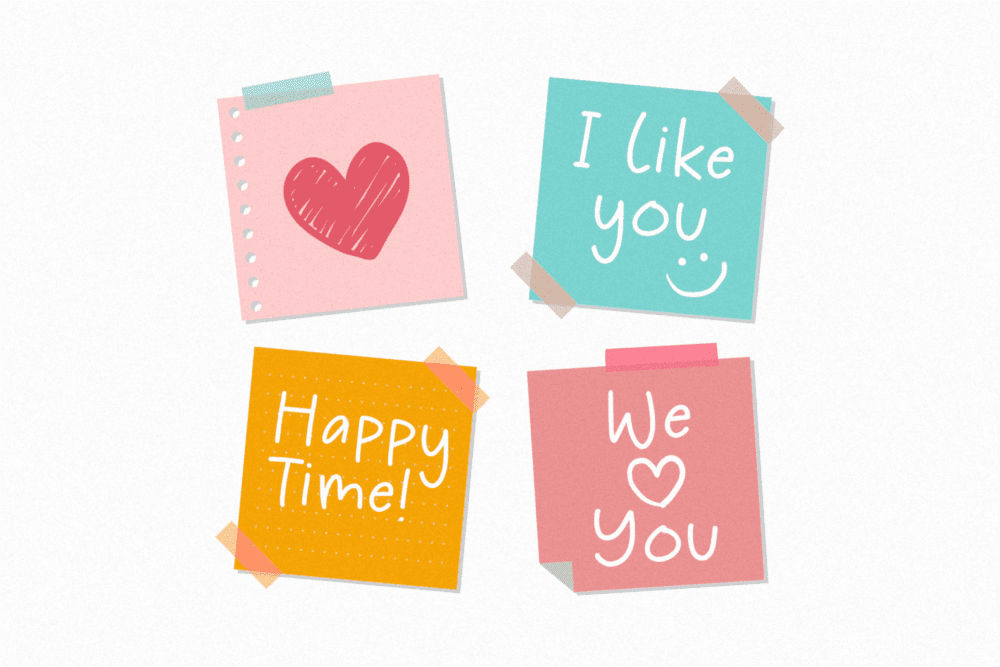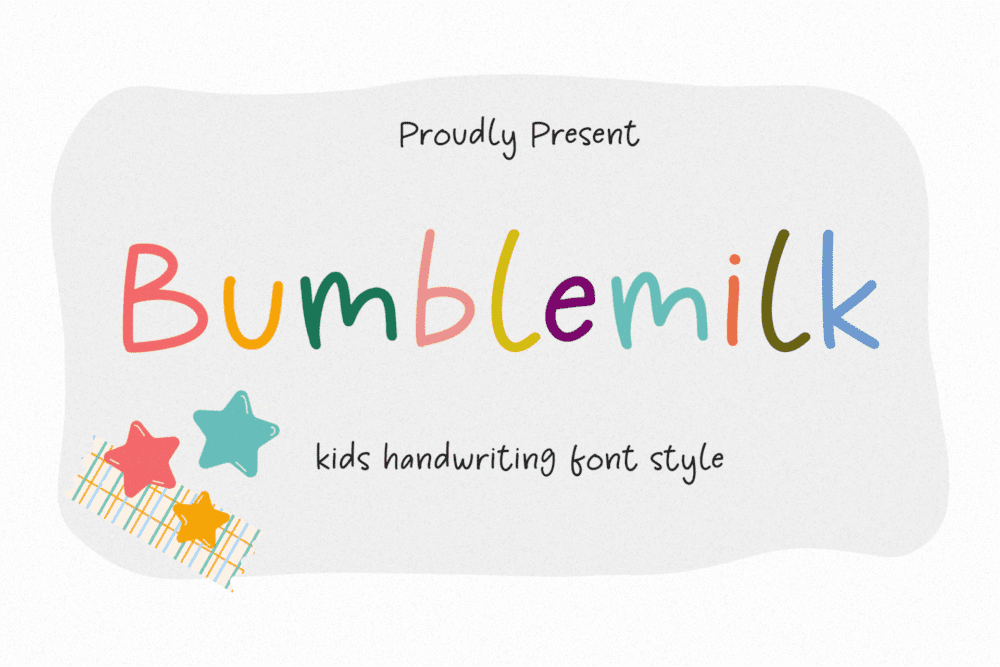
Bumblemilk Font
Bumblemilk is a kid’s handwriting font style. Bumblemilk is perfect for product packaging, branding project, magazine, social media, weddings, or just used to express words above the background.